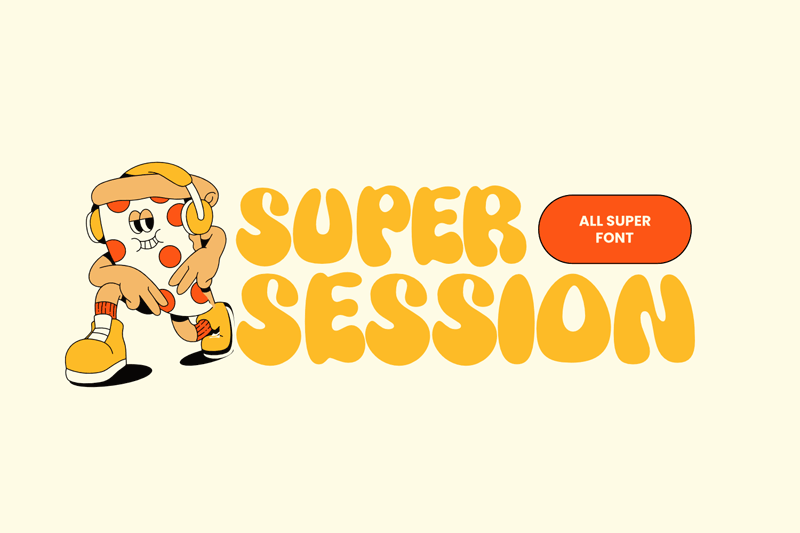
Preview and download Super Session Font. Created by fsuarez913 in Fancy Groovy styles with Free for personal use license.
This font is for PERSONAL USE ONLY!. If you want to use this font for commercial purposes, you will need to purchase a commercial license. You can purchase a commercial license at https://nhfonts.etsy.com/listing/1750636746/super-session-font Unleash the Funk with Super Session! Super Session is a font that explodes with personality, perfect for injecting a dose of groovy fun into your designs. This chunky, bold typeface is more than just letters - it's a vibe. Channel your inner 70s with Super Session's retro vibes. Its thick strokes and playful curves evoke a sense of carefree cool, ideal for creating eye-catching headlines, posters, album covers, and branding that demands attention. |